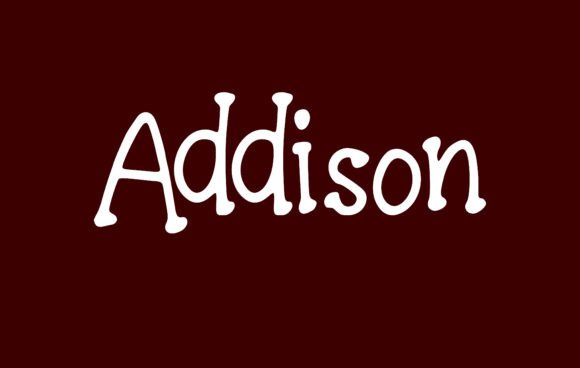
Addison Font: The Ultimate Handwritten Font for Creative Projects
Addison font is an authentic handwritten font that has been expertly designed to add a romantic touch to your creative projects. With its unique and elegant style, this font has the potential to take your ideas to the highest level. In this article, we will explore the features and benefits of Addison font, and discuss how it can be used to enhance your designs.
What is Addison Font?
Addison font is a carefully crafted handwritten font that boasts a romantic and elegant feel. Its authentic and natural look makes it perfect for a wide range of creative projects, from magazine headlines and social media graphics to branding, wedding invitations, and more. The font’s legibility and versatility make it an excellent choice for both title and body text.
Key Features of Addison Font
- Authentic Handwritten Style: Addison font features a genuine handwritten style that adds a personal touch to your designs.
- Romantic and Elegant: The font’s elegant and romantic feel makes it perfect for designs that require a touch of sophistication.
- Highly Legible: Addison font is designed to be highly legible, making it suitable for both title and body text.
- Versatile: The font can be used for a wide range of creative projects, including magazine headlines, social media graphics, branding, wedding invitations, and more.
Benefits of Using Addison Font
Using Addison font in your creative projects offers several benefits. Here are a few:
Enhance Your Brand’s Visual Identity
Addison font can help you create a unique and consistent visual identity for your brand. Its elegant and romantic style makes it perfect for branding, logos, and other marketing materials.
Create Stunning Social Media Graphics
Addison font is ideal for creating stunning social media graphics that grab attention and convey your message effectively. Its legibility and versatility make it perfect for Facebook posts, Instagram captions, Twitter headers, and more.
Perfect for Wedding Invitations and Cards
Addison font is a great choice for wedding invitations, cards, and other stationery. Its romantic and elegant style makes it perfect for creating beautiful and memorable designs.
How to Use Addison Font Effectively
To get the most out of Addison font, here are some tips on how to use it effectively:
Use it for Titles and Headings
Addison font is perfect for titles and headings. Its elegant and romantic style makes it ideal for creating stunning headlines that grab attention.
Pair it with Other Fonts
Addison font can be paired with other fonts to create a unique and visually appealing design. Try pairing it with a sans-serif font for a contrasting look.
Experiment with Different Colors and Textures
Addison font can be used with different colors and textures to create a unique and eye-catching design. Experiment with different colors and textures to find the perfect combination for your project.
Addison font is an authentic handwritten font with a romantic touch that can elevate your creative projects to the highest level. Its elegant and legible style makes it perfect for a wide range of designs, from magazine headlines and social media graphics to branding, wedding invitations, and more. By using Addison font effectively, you can create stunning designs that grab attention and convey your message effectively.